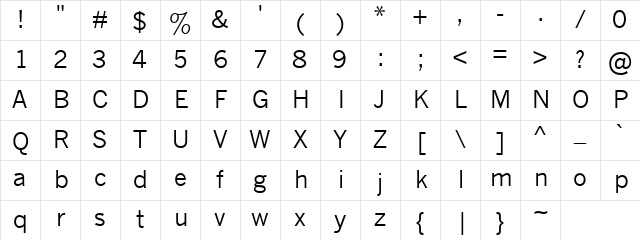
Complete News Gothic Regular glyph index. Displaying only characters natively supported by News Gothic Regular font.
News Gothic takes a clean, functional approach - its unadorned letterforms prioritise legibility and work reliably across screen and print environments.
Font Pairing: Works well alongside a characterful serif or display font that can carry the expressive load while News Gothic handles the functional copy.
Pro Tip: Use News Gothic for UI labels, navigation, and short-form body copy where clean legibility is the priority.